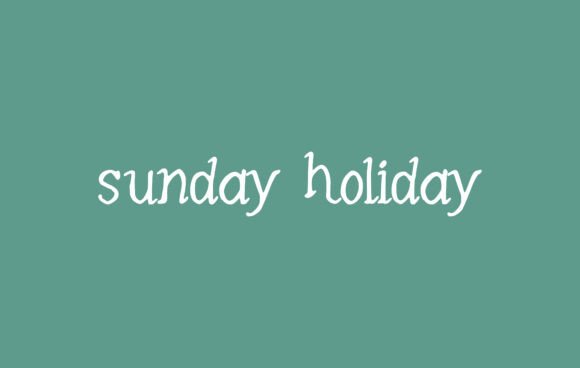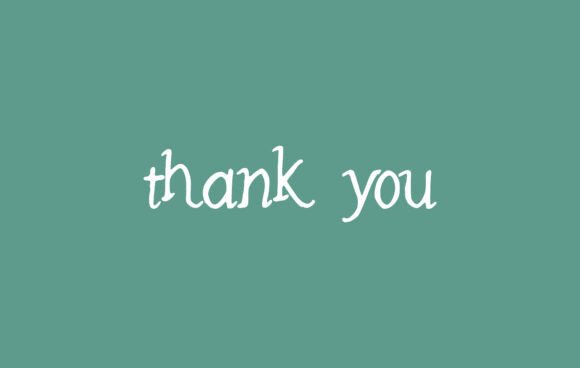
Ethan Font: The Ultimate Handwritten Font for Creative Designs
Are you tired of using the same old fonts for your designs? Look no further than the Ethan Font, an authentic handwritten font with a romantic touch that’s sure to take your creative ideas to the next level. Expertly designed to be a true favorite among designers and crafters, this font is legible, versatile, and perfect for a wide range of applications.
The Characteristics of Ethan Font
Ethan Font is a beautifully crafted handwritten font that’s characterized by its unique blend of elegance and playfulness. With its romantic touch, this font is perfect for designs that require a personal and sentimental feel. The font is designed to be highly legible, making it suitable for use as both title and body text. Whether you’re creating a magazine headline, social media post, or wedding invitation, Ethan Font is sure to make a lasting impression.
Why Choose Ethan Font?
So why choose Ethan Font over other fonts on the market? Here are just a few reasons why this font stands out from the rest:
- Unique and Authentic: Ethan Font is a one-of-a-kind handwritten font that’s been expertly designed to provide a unique and authentic look.
- Legible and Versatile: This font is highly legible and versatile, making it perfect for use in a wide range of designs, from magazine headlines to social media posts.
- Romantic Touch: With its romantic touch, Ethan Font is perfect for designs that require a personal and sentimental feel, such as wedding invitations and cards.
- Easy to Use: Ethan Font is easy to use and can be easily integrated into your design workflow.
Design Ideas with Ethan Font
Ethan Font is a versatile font that can be used in a wide range of designs. Here are just a few ideas to get you started:
- Magazine Headlines: Use Ethan Font to create eye-catching magazine headlines that grab readers’ attention.
- Social Media Posts: Add a personal touch to your social media posts with Ethan Font, perfect for creating engaging and shareable content.
- Wedding Invitations: Make your wedding invitations truly special with Ethan Font, adding a romantic touch to your big day.
- Branding: Use Ethan Font to create a unique and memorable brand identity that sets you apart from the competition.
- Cards and Stationery: Add a personal touch to your cards and stationery with Ethan Font, perfect for special occasions and everyday correspondence.
Tips for Using Ethan Font
Here are a few tips for getting the most out of Ethan Font:
- Experiment with Font Sizes: Try using Ethan Font in different font sizes to create visual interest and hierarchy in your designs.
- Combine with Other Fonts: Experiment with combining Ethan Font with other fonts to create a unique and eye-catching typography combination.
- Use in Combination with Images: Use Ethan Font in combination with images to create a visually appealing and engaging design.
In conclusion, Ethan Font is a unique and authentic handwritten font with a romantic touch that’s perfect for designers and crafters looking to add a personal touch to their designs. With its legibility, versatility, and ease of use, this font is sure to become a favorite among creative professionals. Whether you’re creating magazine headlines, social media posts, wedding invitations, or branding materials, Ethan Font is the perfect choice for adding a touch of elegance and sophistication to your designs.